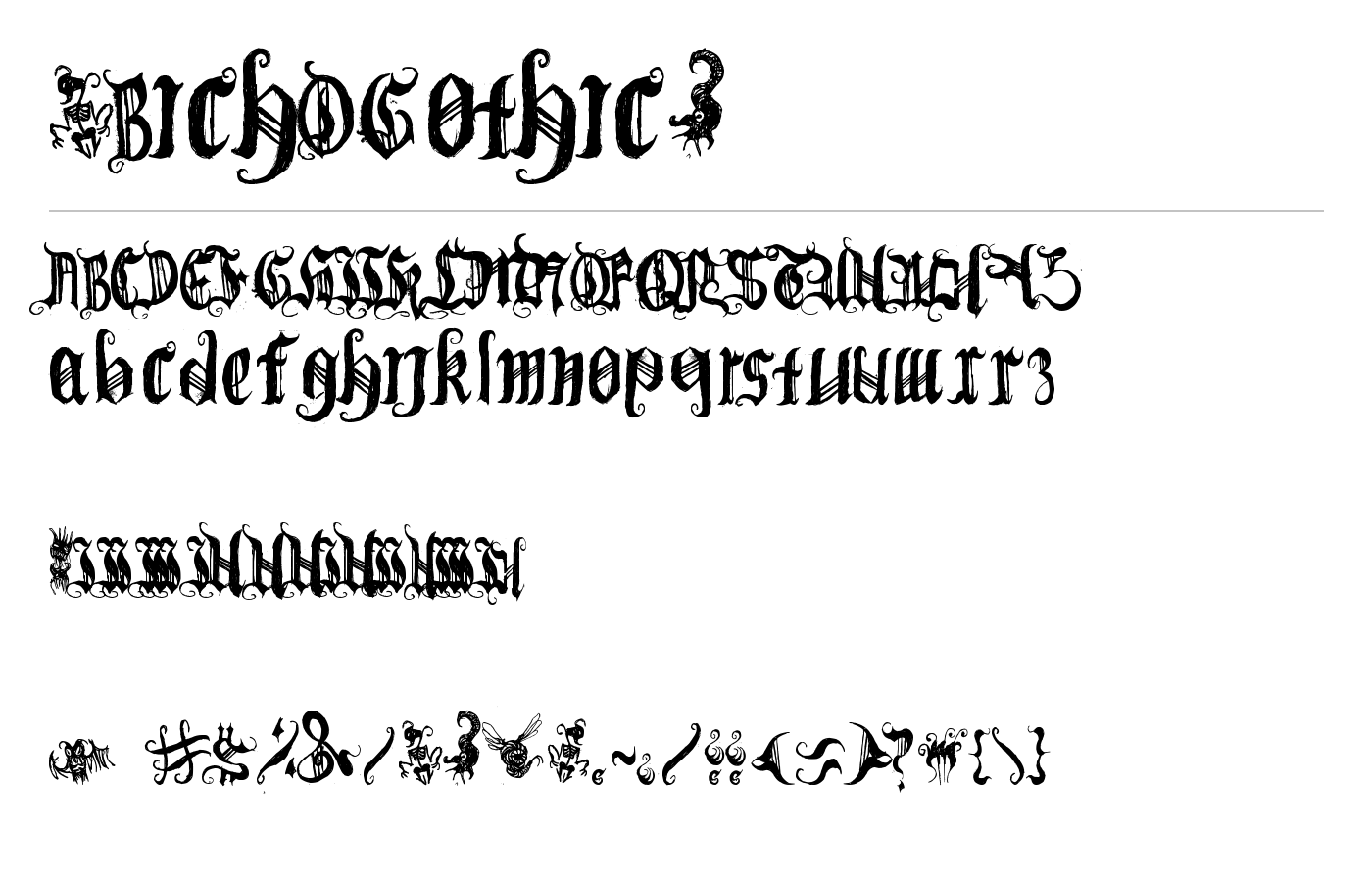
BichOGothic is a highly decorative blackletter-style font featuring bold, intricate strokes with elaborate flourishes and gothic embellishments, creating a dark and dramatic appearance. Its ornate letterforms and tight spacing evoke a vintage, medieval feel, making it ideal for gothic-themed designs, fantasy projects, or expressive headlines that need a strong, artistic impact. This font works best in logos, posters, or editorial titles where a unique, historical, and intense visual identity is desired.
(BichOGothic) Font